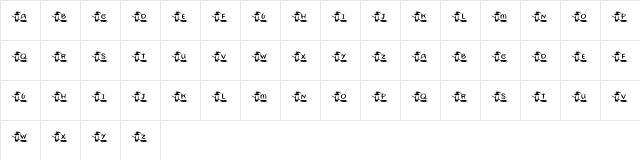
KR Witchyrella Regular
Design Context for KR Witchyrella Typeface
KR Witchyrella is a composed and adaptable typeface that performs quietly and consistently across a wide range of design contexts.